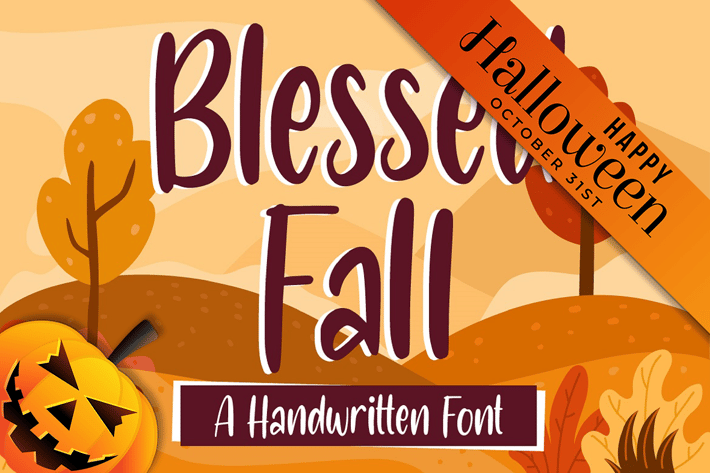
Introducing Blessed Font - A Handwritten Font
A script cursive handwritten font. Beautiful, cozy, casual, yet neat enough to be used for various purposes. Go ahead and use it on your projects, promotions, advertisements, social media!
Font beautifully made for your audience, clients, or guests!
Multilingual & Ligature Support
Full sets of Punctuation and Numerals